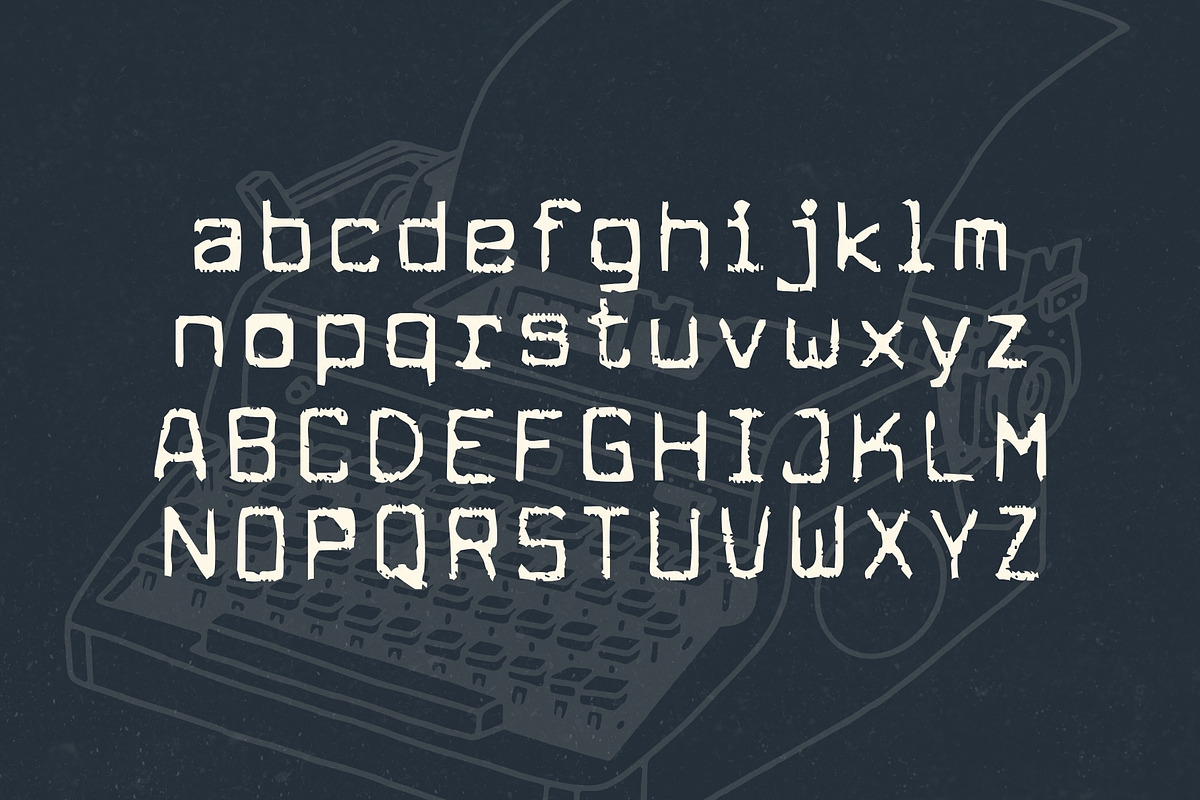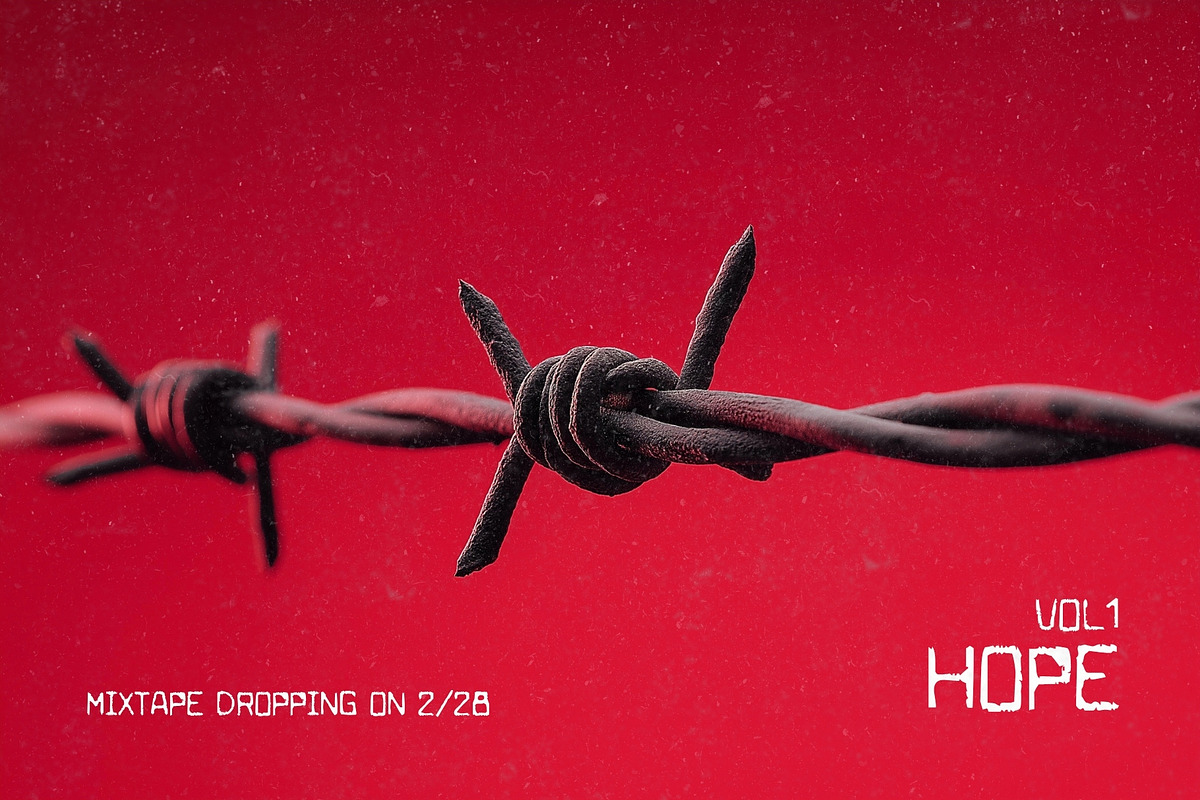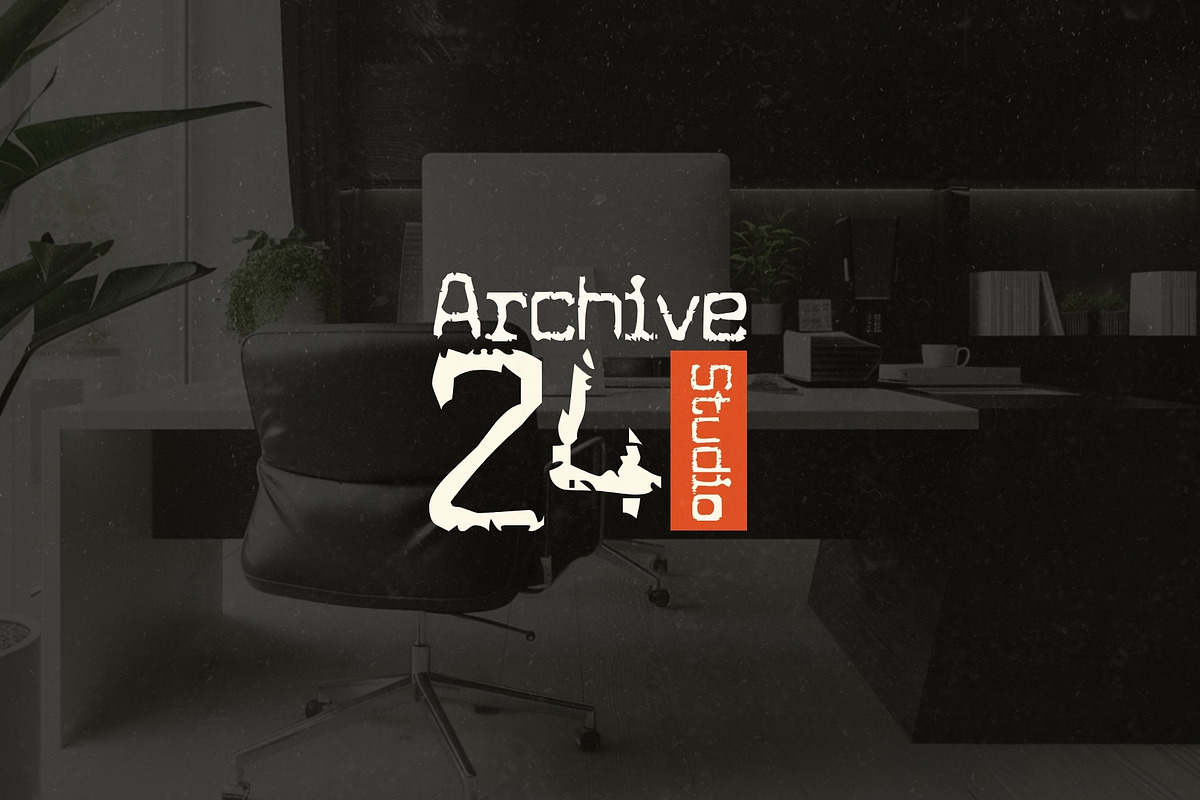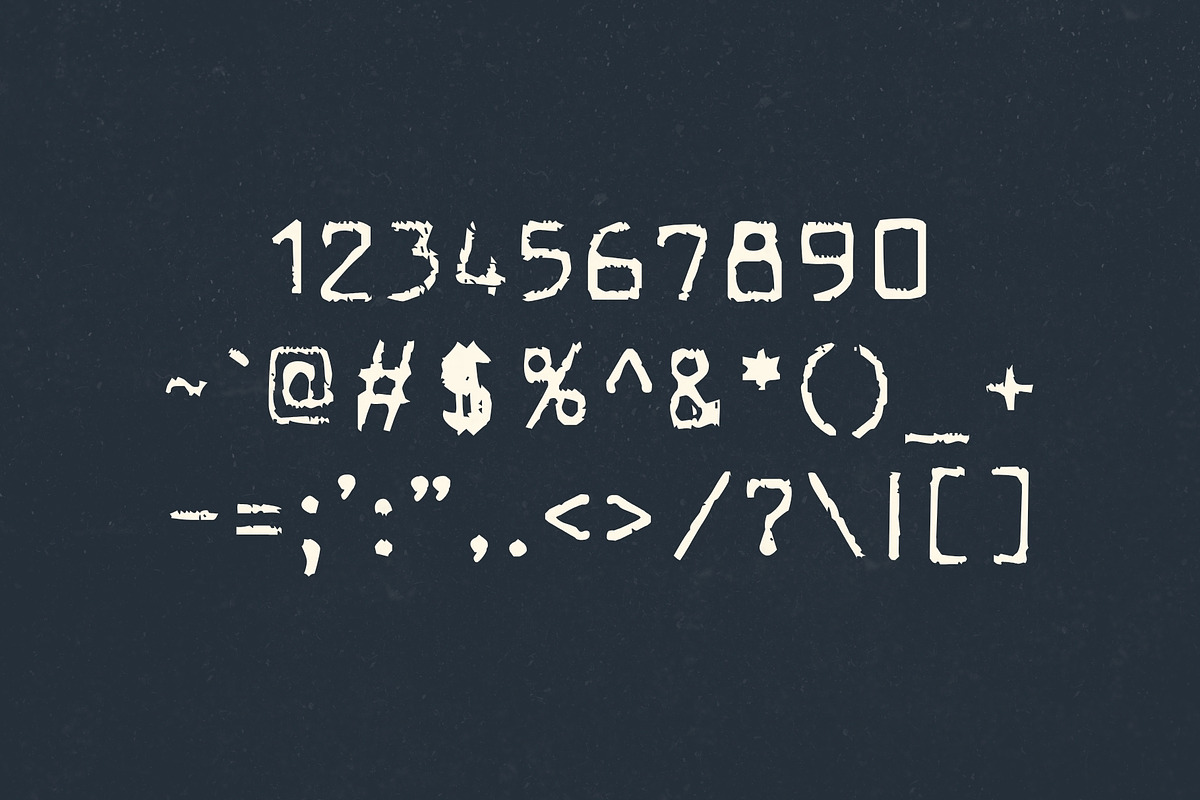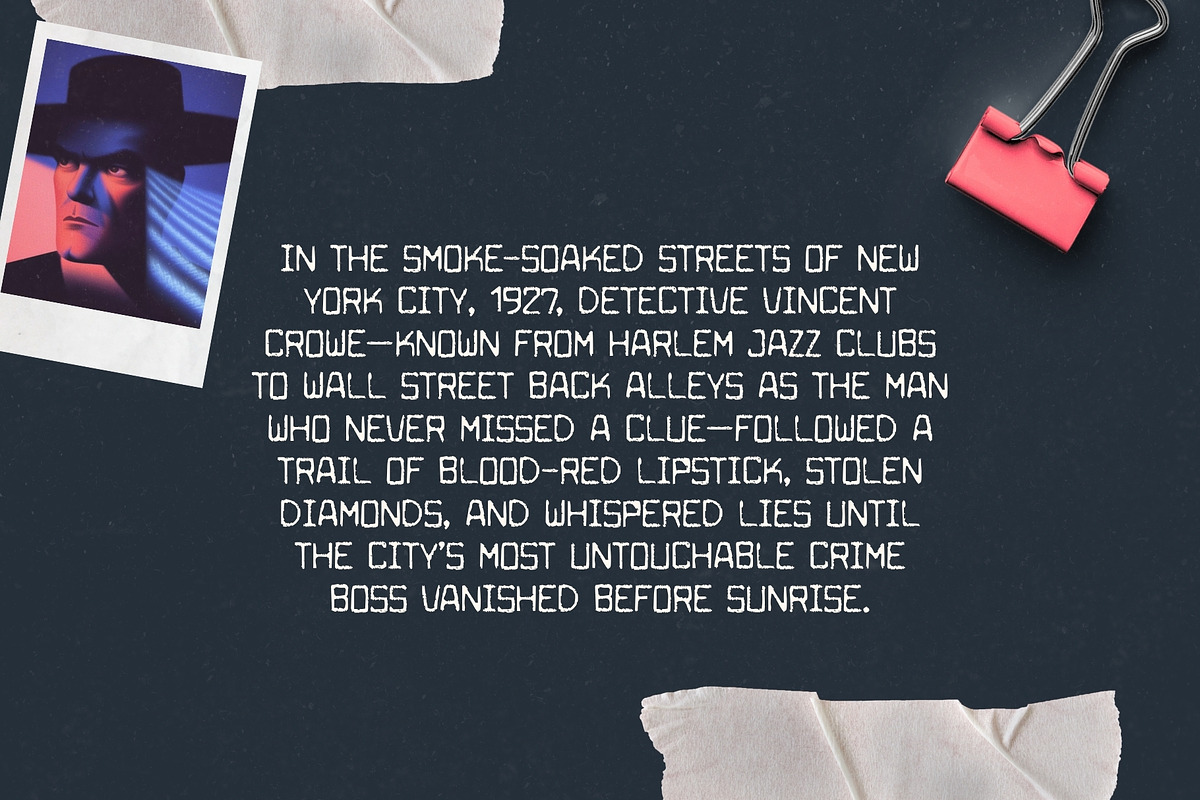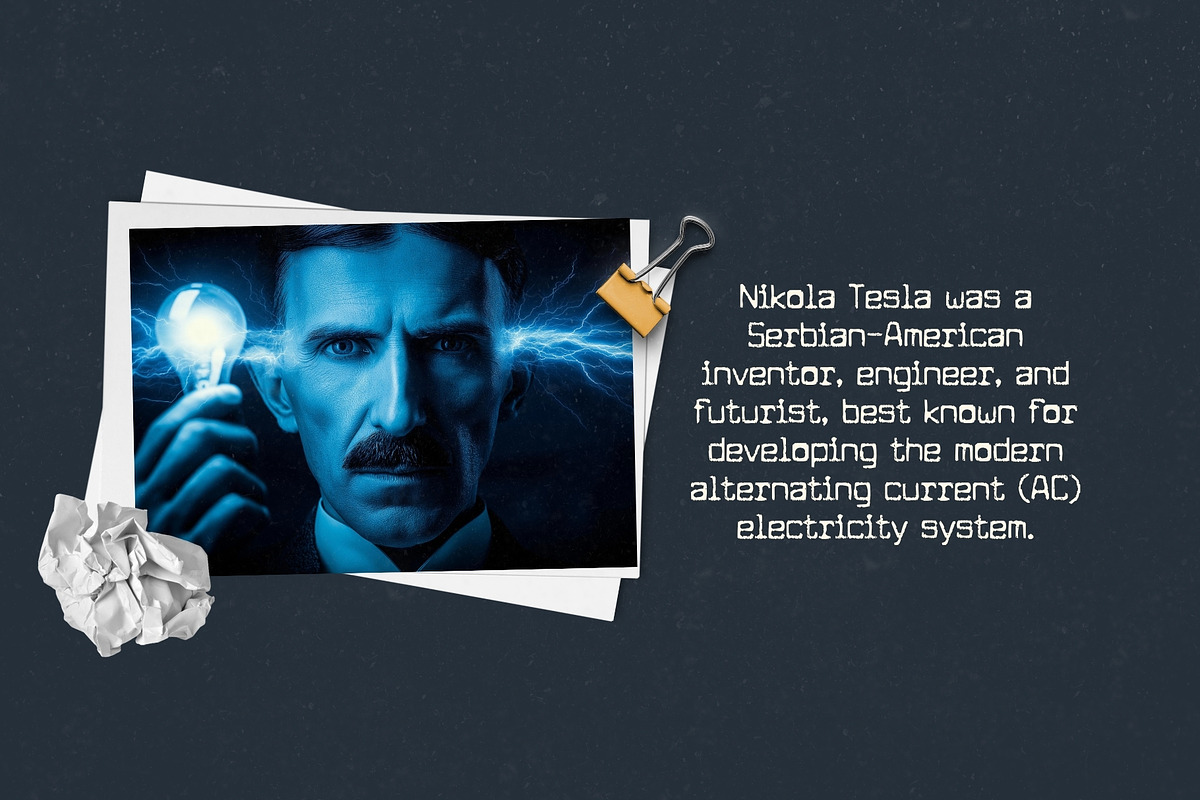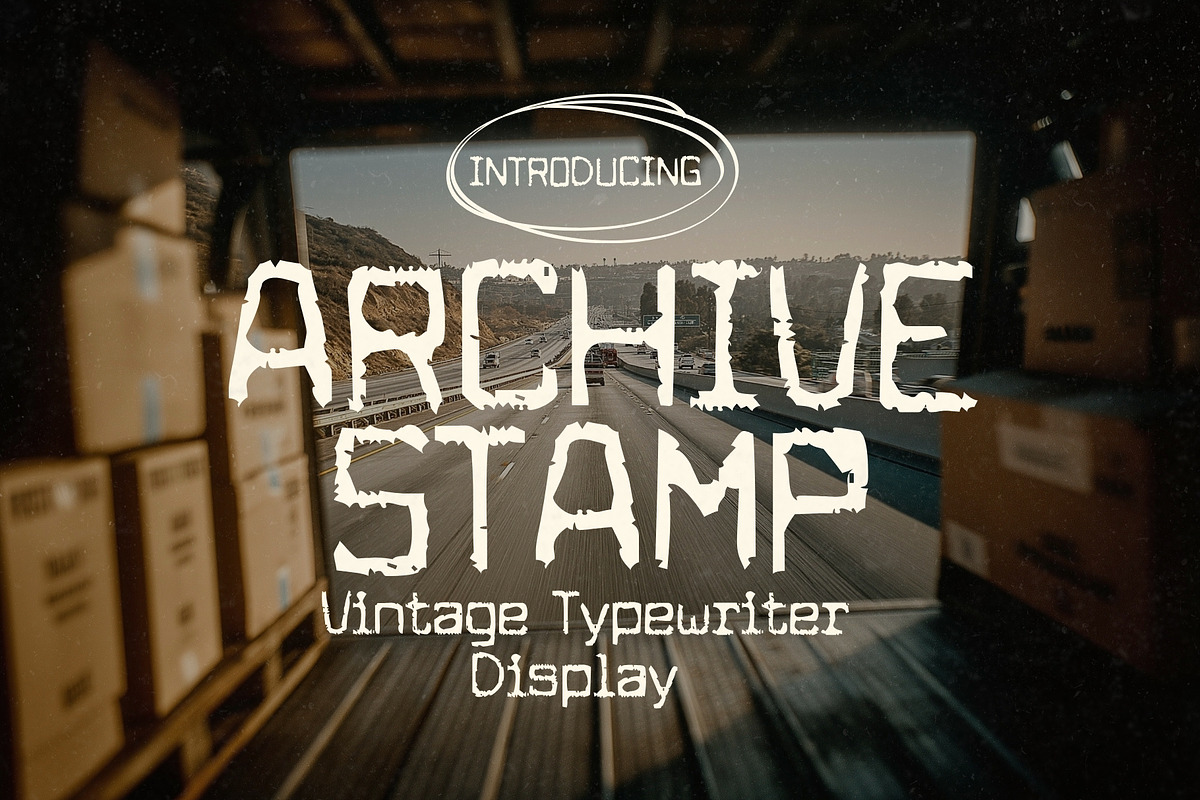
Archive Stamp - Vintage Typewriter
Archive Stamp is a weathered display typeface inspired by the commanding presence of Olympia typewriters’ Senatorial-era lettering. Its rusty, square letterforms evoke official documents, stamped records, and the unmistakable authority of archived paperwork pulled from government files and municipal vaults.
Designed to feel aged, mechanical, and resolute, Archive Stamp delivers a sense of vintage power and institutional credibility. The distressed texture and rigid geometry give every word the weight of history — perfect for designs that need to feel official, archival, or historically grounded.
Ideal for posters, editorial layouts, book covers, branding, album artwork, signage, certificates, and document-style graphics, Archive Stamp excels anywhere typography must feel serious, authentic, and timeworn.
If your project calls for typography that looks like it was typed, stamped, filed, and preserved, Archive Stamp delivers authority you can feel.
- Vintage typewriter-inspired display font
- Weathered, distressed texture with square forms
- Evokes government, editorial & archival authority
- Perfect for posters, branding, documents & print
- Strong historical and institutional character
Archive Stamp doesn’t whisper history — it records it.